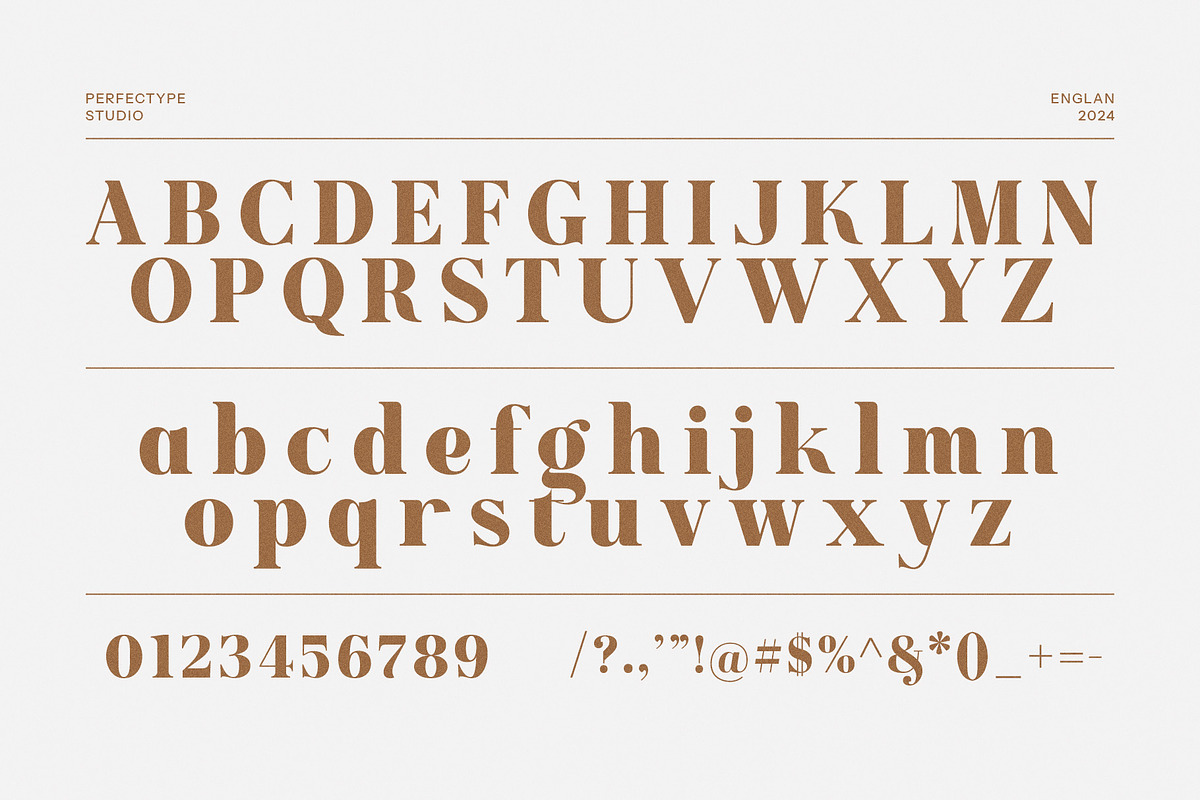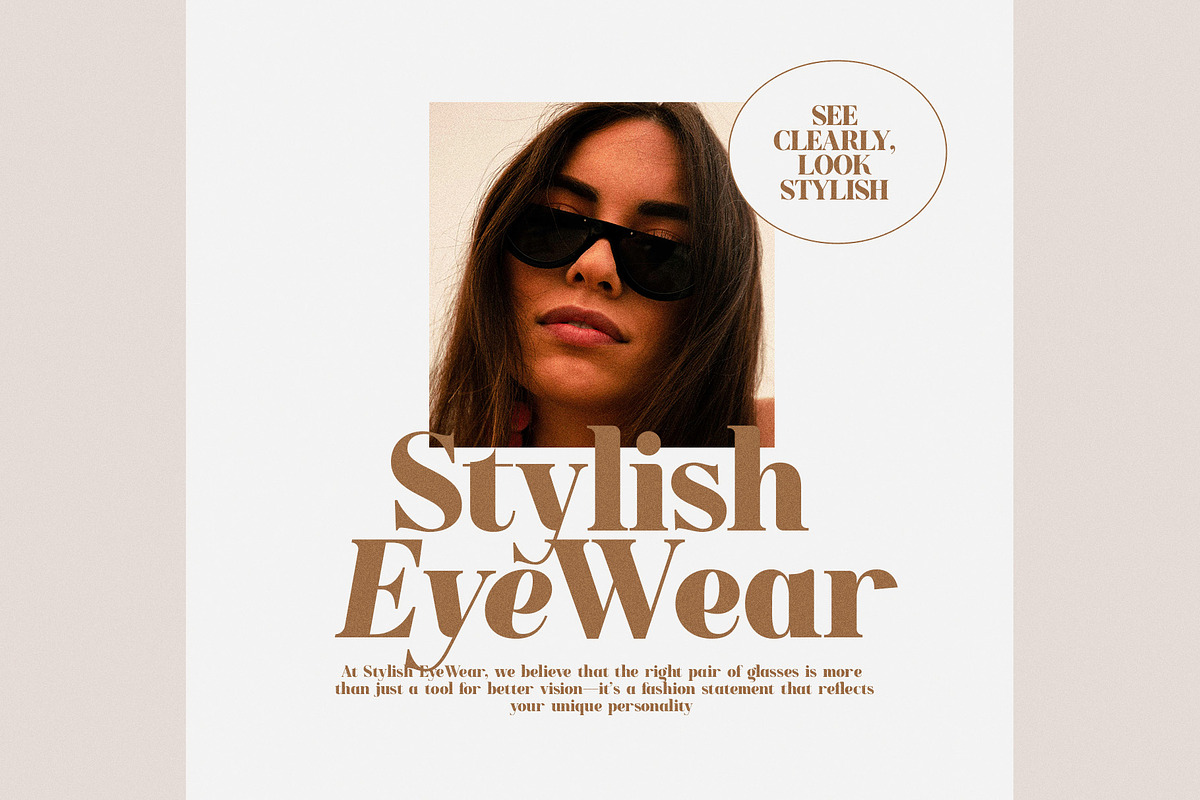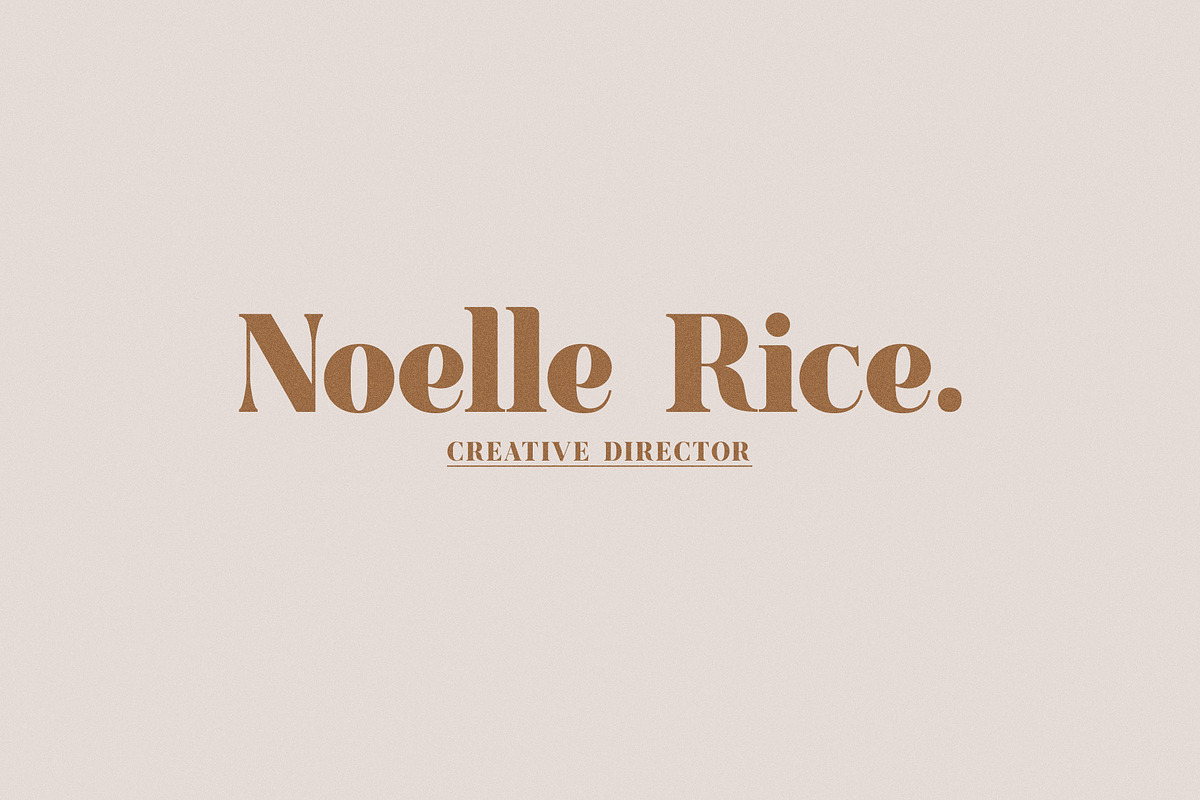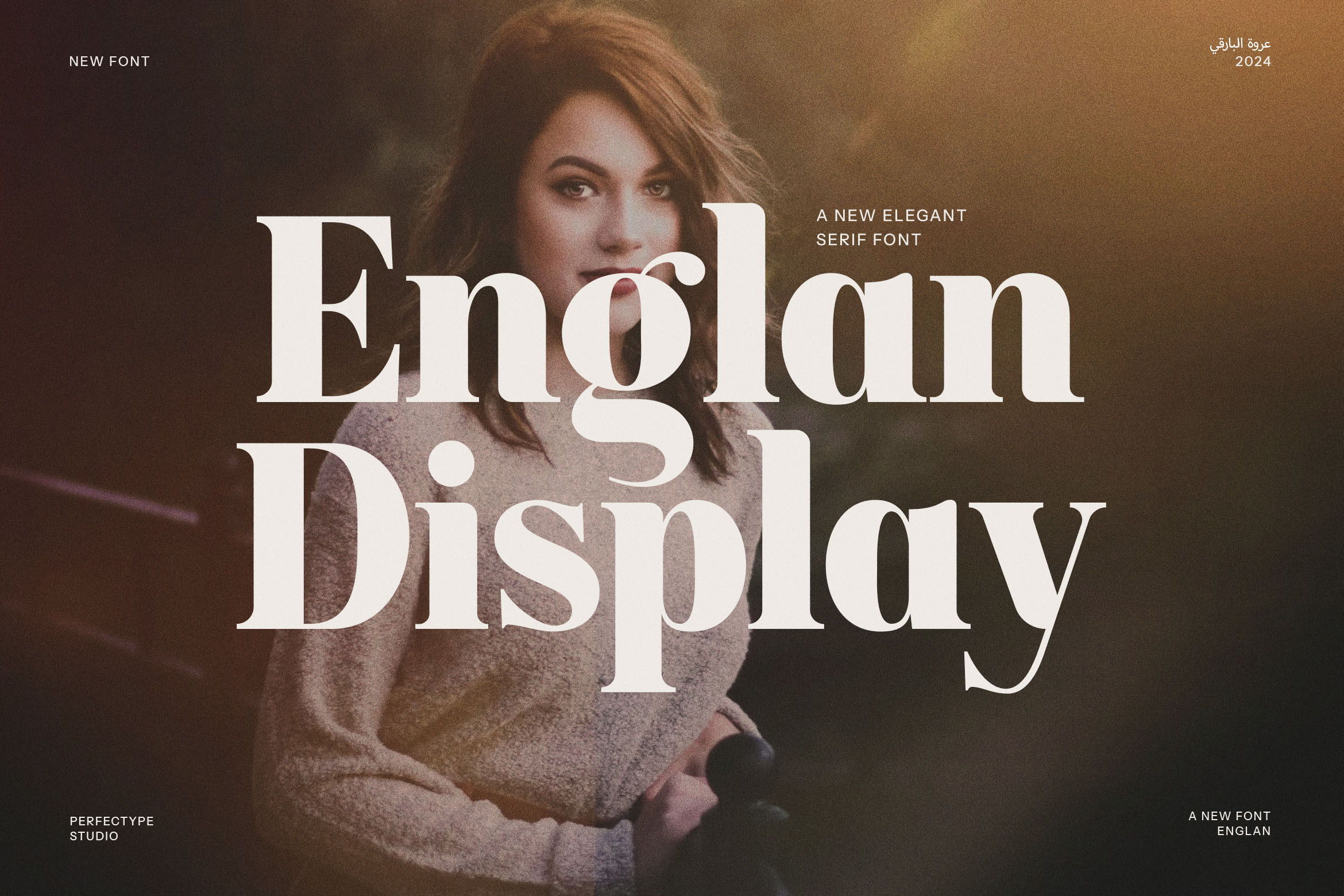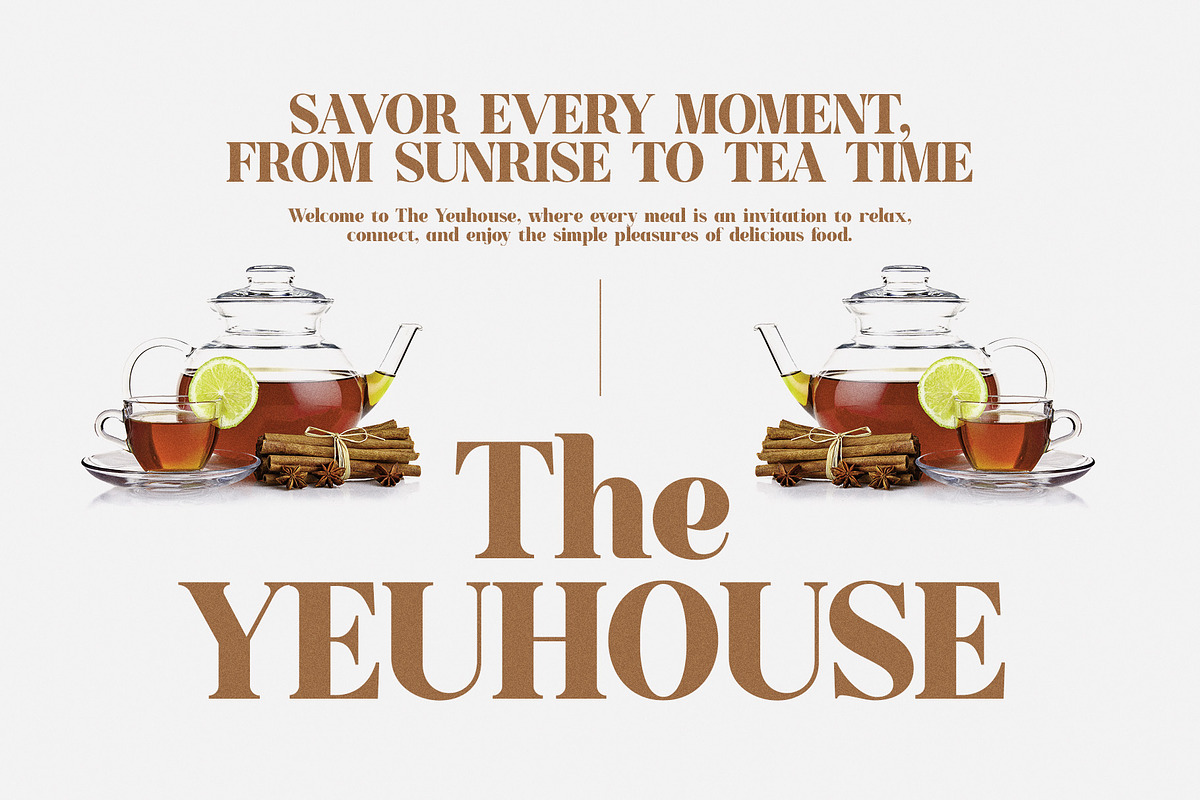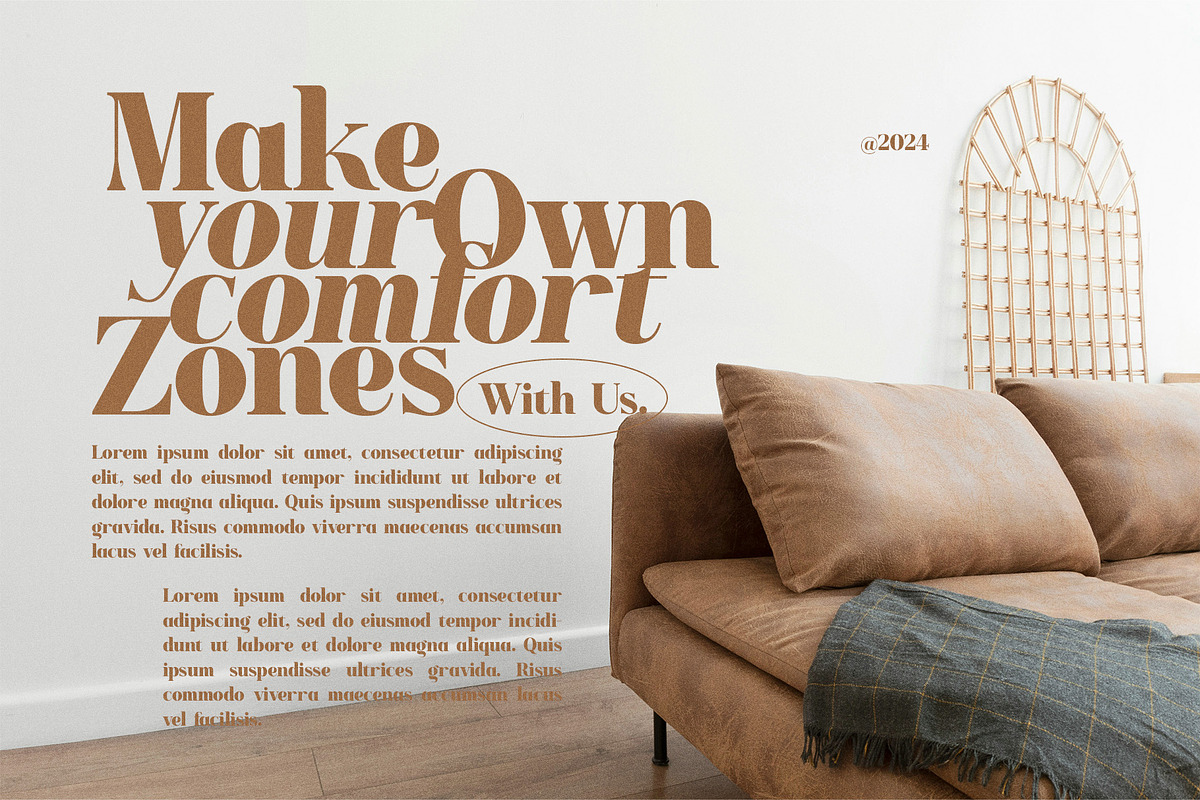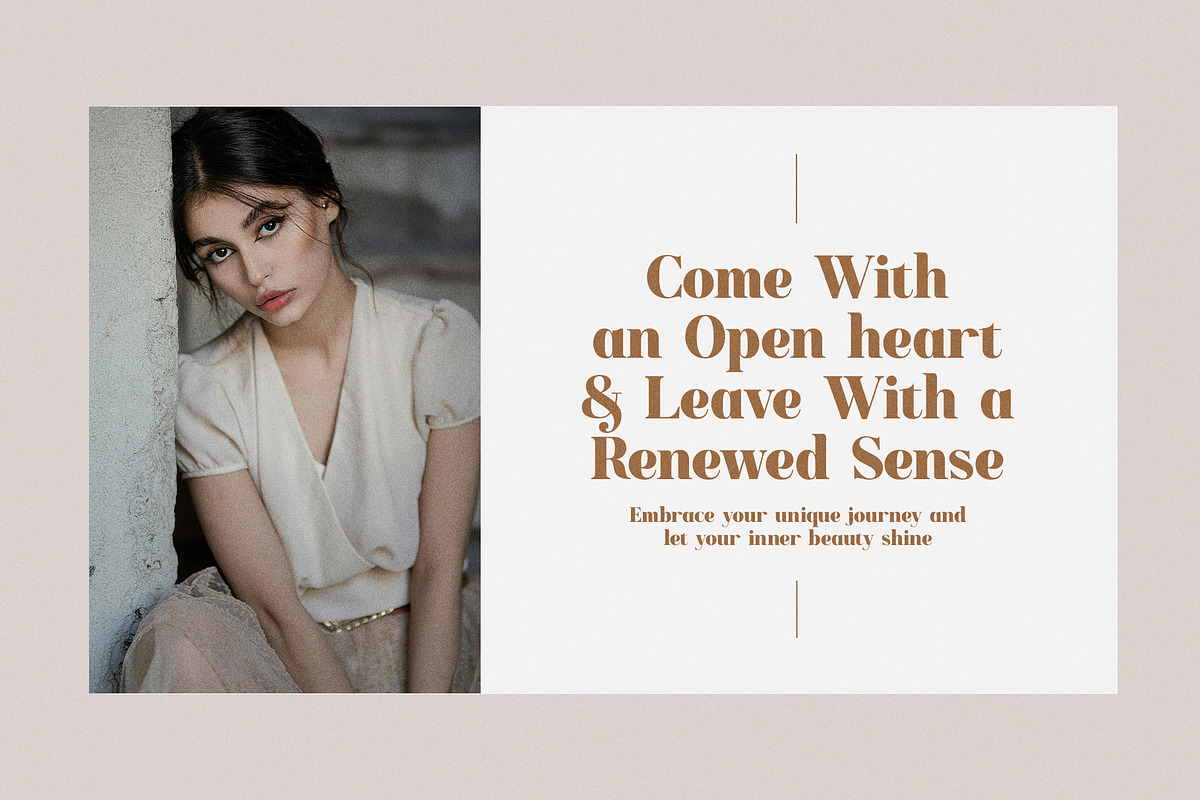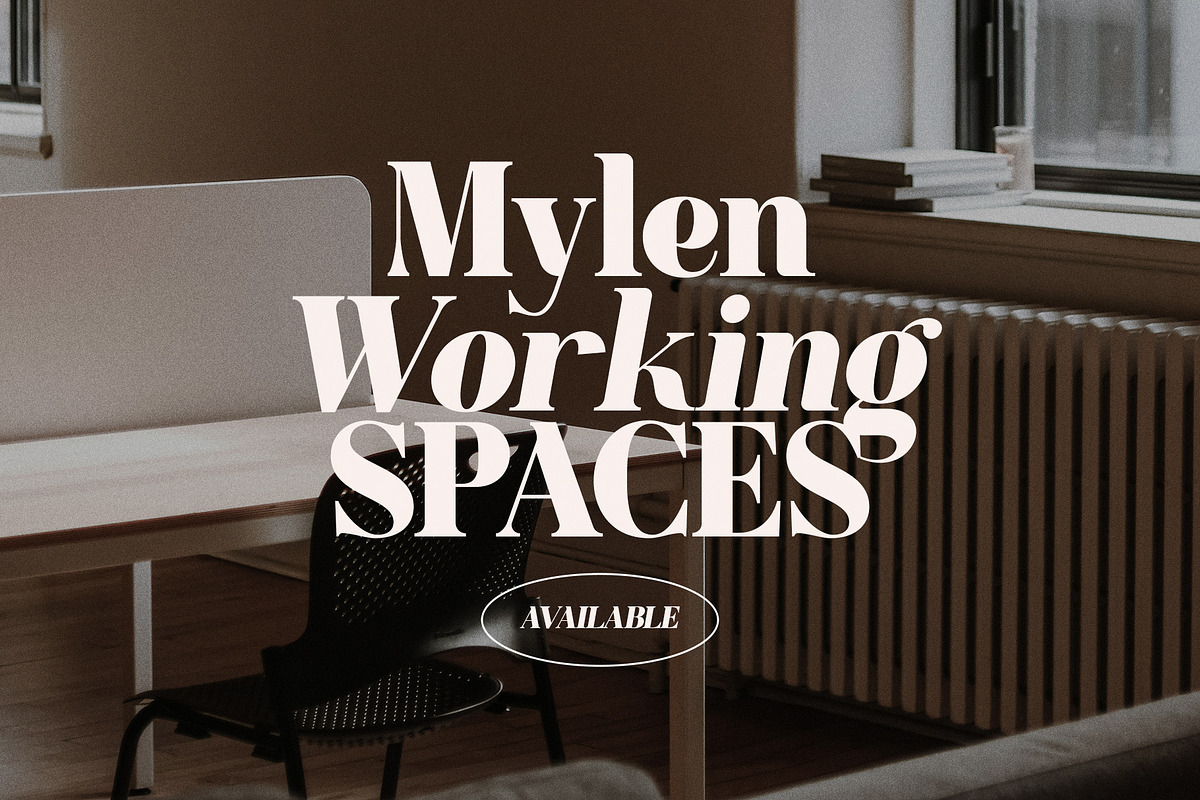
Englan Modern Serif Font
Englan Modern Serif Font – A Perfect Blend of Elegance and Sophistication
Introducing the Englan Modern Serif Font, a beautifully designed serif typeface that combines modern sophistication with timeless elegance. This font is meticulously crafted to elevate your design projects with its sleek, refined aesthetic. Its unique letterforms and clean, crisp lines make it an ideal choice for a variety of design needs, including logos, branding, websites, magazines, and advertisements.
Englan Modern Serif Font stands out with its bold yet graceful appearance, making it a great option for luxury brands, boutiques, fashion, food industry designs, and other creative ventures that demand a touch of class. Whether you are creating a high-end brand identity, designing editorial layouts, or developing product packaging, this versatile font offers the perfect balance of style and readability.
The elegant serif details and well-balanced proportions of Englan ensure its legibility across both digital and print media, making it suitable for headlines, titles, subheadings, and body text. Its distinctive yet highly readable style enhances your message, helping your brand stand out in a crowded marketplace.
With its sophisticated charm and contemporary appeal, Englan Modern Serif is the ideal choice for designers looking to create memorable, polished, and visually striking content. Whether you're designing for print or online platforms, this font adds an air of elegance and professionalism to any project, ensuring your work looks both modern and timeless.